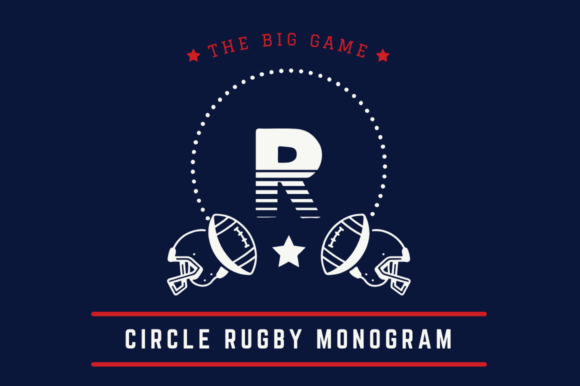
The Perfect Touchdown for Designers: Introducing Circle Rugby Monogram Font
Remember that moment when you’re brainstorming ideas for a new project, and suddenly, a spark of creativity hits you? It’s like the whole room lights up, and you can’t wait to bring your vision to life. For designers working on sports-related projects, that spark often comes in the form of a bold, athletic font that screams “team spirit.” Enter the Circle Rugby Monogram Font, a typeface designed to evoke the excitement of American football and rugby.
This versatile font is perfect for creating logos, merchandise, and branding materials that exude energy and enthusiasm. Its strong lines and sporty aesthetic make it an invaluable tool for designers looking to capture the essence of their clients’ teams or events. With the Circle Rugby Monogram Font, you’ll be able to score a touchdown with your designs every time.
Circle Rugby Monogram Font Key Features
- Unique Monogram Design: A custom-designed monogram font featuring the letters “CR” in a circular pattern, perfect for sports teams, clubs, or organizations.
- Customizable: Can be easily customized to fit your team’s colors and branding with the use of a text editor or font software.
- Legibility: Designed to be highly legible, even at small sizes, making it perfect for use on jerseys, merchandise, and other promotional materials.
- Exclusive Design: The Circle Rugby Monogram Font is a unique and exclusive design, not available in standard font libraries, ensuring your team’s branding stands out from the crowd.
Circle Rugby Monogram Font Review
Overall, I found the Circle Rugby Monogram Font to be a solid choice for designers looking for a unique, custom monogram solution. ✨ One of the standout features is its versatility, as it can be used for a variety of purposes, from branding to invitations to personal stationery.
Here are some of the key strengths:
- ✨ Customizable: The font can be easily customized to fit your specific needs, including color, size, and style.
- ✨ Easy to use: The font is simple to apply and edit, even for designers with limited experience.
- ✨ Unique: The monogram design adds a touch of elegance and sophistication to any project.
- ⚠️ Limited character set: The font is primarily designed for monogram use, so it may not be suitable for longer text blocks.
- ⚠️ Not suitable for small text: The font is best used for larger text sizes, as it can become difficult to read at smaller sizes.
Overall, I would recommend the Circle Rugby Monogram Font for designers looking for a unique, custom solution. While it may have some limitations, its versatility and ease of use make it a solid choice for a variety of projects.
Circle Rugby Monogram Font: A Practical Application Guide
Use the font consistently throughout your design to create a cohesive look.
Experiment with different font sizes, colors, and styles to create visual interest.
Use the font in combination with other design elements, such as images and shapes, to create a unique and engaging design.
The Circle Rugby Monogram Font is commonly used for:
Logo design
Text overlays
Titles and headings
Branding and marketing materials
Alternative Monogram Fonts for Designers
Aurum
Aurum is a classic monogram font with a luxurious feel. It features elegant curves and geometric shapes, making it suitable for high-end branding and luxury goods. When to use: Luxury brands, high-end fashion, and premium products. Comparison: Aurum has a more refined and sophisticated look compared to Circle Rugby Monogram Font, which is more casual and sporty.
Bethlehem
Bethlehem is a vintage-inspired monogram font with a classic, timeless feel. It features intricate details and ornate flourishes, making it suitable for traditional and heritage brands. When to use: Heritage brands, traditional businesses, and classic designs. Comparison: Bethlehem has a more ornate and intricate design compared to Circle Rugby Monogram Font, which is more simple and modern.